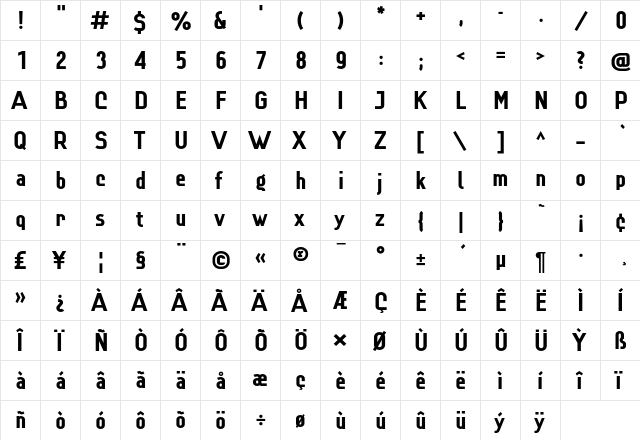
Lindau ExtraBold
| Foundry | Markus Waeger, |
| Designer | Markus Waeger |
Design Context for Lindau Typeface
Lindau offers clean, dependable letterforms without strong stylistic allegiance, making it a practical choice for designers who need flexibility. Its bold stroke weight gives it real presence on the page.